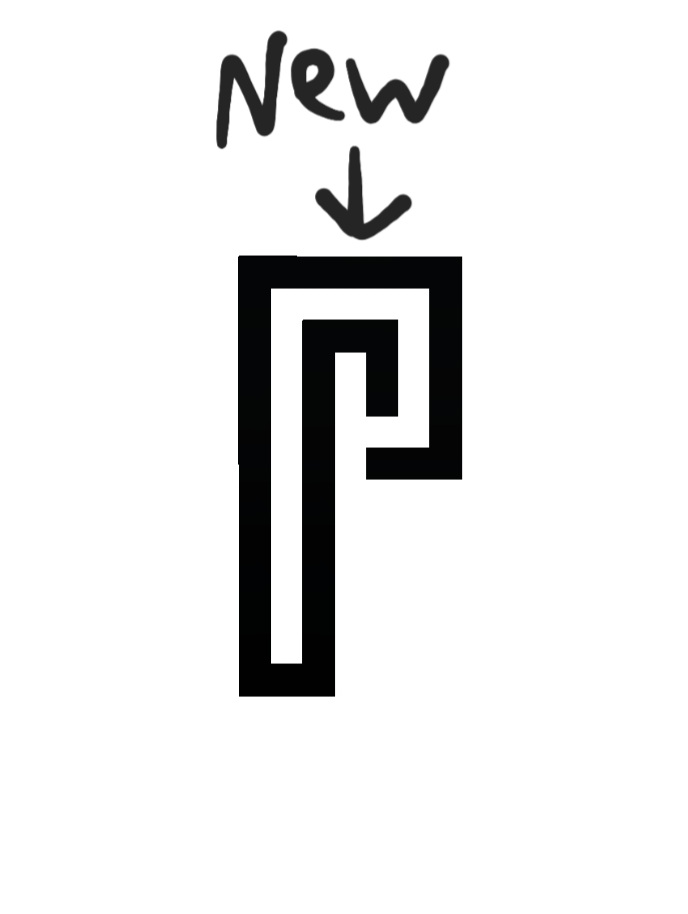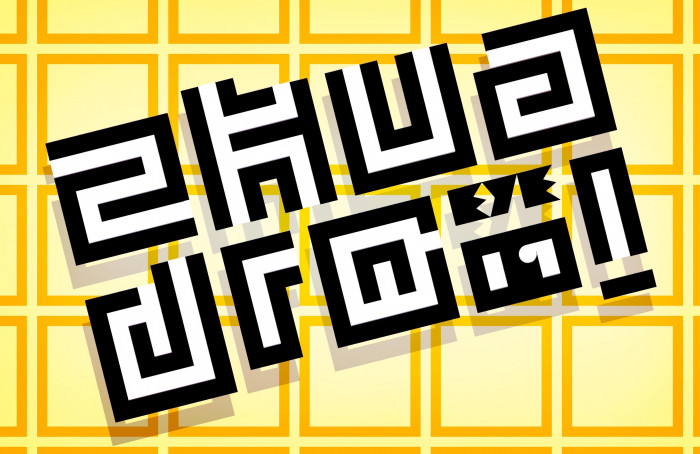
In/Out letters experiment.
interesting design!
MMM...Elmo, thats cool,but i experiment the,to looks easy,likes of draw on the bricks
Im improved the letter P and your font makes reference of lines of Nazca in Peru
This has Schrofer written all over it, and I'm sure would've had gotten his stamp of approval !!! Very nice font my good old friend! It certainly received my heads up...
@Sed4tives: Thanks a million, compañero! That wasn't the first intention, but Schrofer being in my head and appearing when making a font like this is pleasantly your fault. Very glad you liked it. It's been one of those fonts that relieves and brightens my day after struggling with convoluted glyphs from other works. And we have a pending Schrofer project that I should bring to light one of these days, remember? Glad you don't lose contact with this arid stage of FS.
"And we have a pending Schrofer project that I should bring to light one of these days, remember?"
Indeed I haven't forgotten about this alleged mythical prognosis. Waiting for far to long at this point.. ❤️
Beautiful! It definitely feels like Schrofer, but it is unique in its own right.
@elmoyenique i like versions of your logo,i do a comment of interesting imformation of your Font.Congratulation!